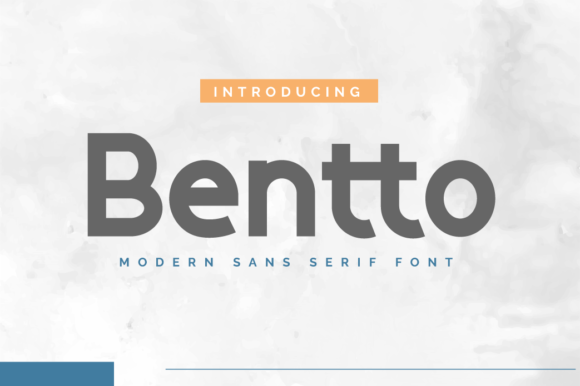
Discover the Joy of Bentto Font
There’s something magical about creating something from scratch. The blank canvas, the endless possibilities, the rush of excitement as your idea begins to take shape. It’s a feeling that’s hard to replicate, but it’s one that many designers know all too well. And that’s exactly why we’re excited to introduce you to the Bentto Font – a simple, casual sans serif font that’s perfect for adding a touch of personality to your craft designs.
Whether you’re a seasoned pro or just starting out, the Bentto Font is an invaluable tool for any designer. Its clean lines and effortless style make it easy to use, while its versatility ensures that it pairs well with a wide range of design elements. With the Bentto Font, the possibilities are endless, and we can’t wait to see what you create.
Bentto Font Key Features
- Font Family: Bentto is a sans-serif font family designed for modern and minimalist designs.
- Character Set: Bentto Font includes a comprehensive character set, covering Latin, Cyrillic, and Greek alphabets, with over 1000 glyphs.
- Unique Characteristics: Bentto’s distinctive features include its clean lines, geometric shapes, and a subtle x-height, making it suitable for body text and headings.
Bentto Font Review
I recently had the chance to work with the Bentto Font, and I wanted to share my honest thoughts on it. Here’s what I think.
- The Bentto Font has a unique, modern aesthetic that sets it apart from more traditional fonts.
- The font’s versatility allows it to work well in a variety of contexts, from digital displays to print materials.
- The font’s bold and italic styles add a nice touch of depth and emphasis to text.
- The Bentto Font may not be the best choice for projects that require a more classic or traditional look.
- The font’s condensed forms can sometimes feel a bit cramped or hard to read, especially at smaller sizes.
- The Bentto Font is not available in as many languages as some other fonts, which may limit its use in certain projects.
The Bentto Font is a solid choice for designers looking for a modern, eye-catching font. While it may have some limitations, its unique aesthetic and versatility make it a great option for a wide range of projects. With some careful consideration of its limitations, I think the Bentto Font can be a valuable addition to any designer’s toolkit.
Tips for Getting the Most Out of Bentto Font
Here are some tips to help you get the most out of Bentto Font:
- Use Bentto Font for headings and titles to add a touch of elegance.
- Combine Bentto Font with other fonts to create a unique and interesting typography.
- Experiment with different font sizes and colors to find the perfect look for your project.
Bentto Font is perfect for:
- Choose a combination of Bentto Font’s bold and regular weights to create visual contrast and emphasize key elements.
- Use Bentto Font for headings and titles to add a touch of whimsy and magic.
- Combine Bentto Font with hand-drawn illustrations or watercolor textures to enhance the storybook’s enchanting atmosphere.
- Pair Bentto Font with playful, cursive fonts for a nostalgic feel.
- Use Bentto Font alongside bright, vibrant colors to create a lively and engaging atmosphere.
- Choose Bentto Font’s regular weight for a clean and modern look.
- Use Bentto Font for the main text to create a cohesive and stylish appearance.
- Combine Bentto Font with simple, geometric patterns or minimalist illustrations to add visual interest.
Unleashing Creativity with Bentto Font
Project 1: Whimsical Storybook
Create a charming storybook that captures the imagination of readers. Bentto Font’s unique style will transport your audience to a world of fantasy and wonder.
To use Bentto Font in this project:
Create a sophisticated and elegant wedding invitation that exudes understated luxury. Bentto Font’s clean lines and geometric shapes will add a touch of modern sophistication.
To use Bentto Font in this project: